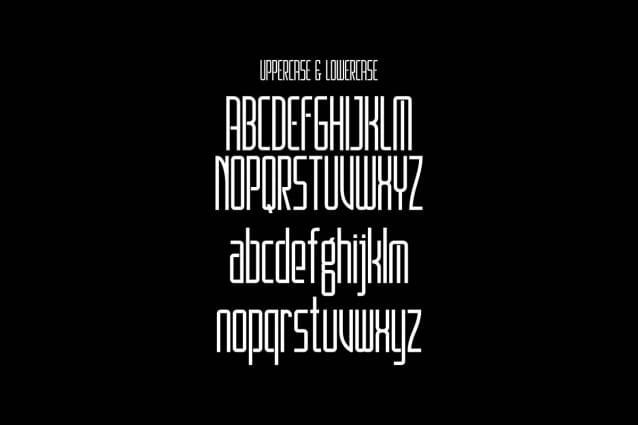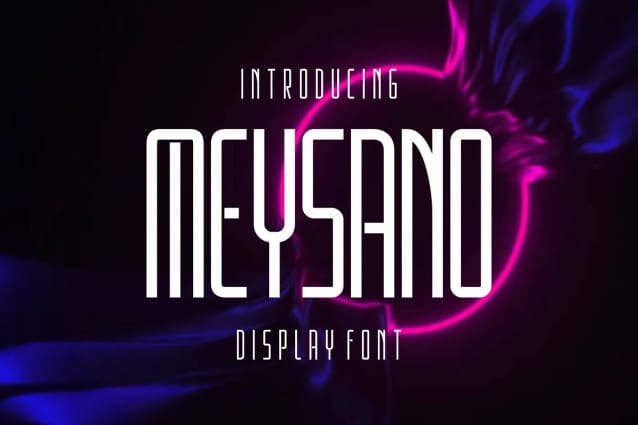
Meysano Display Font
Meysano Display Font, is a unique and interesting display font. A little bit quirky, this font looks incredibly adept on a wide variety of contexts